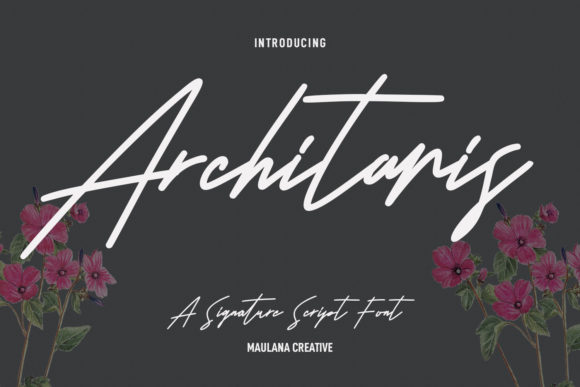
Behold, Architaris Signature Font, the epitome of elegance and beauty in the realm of script fonts. Maulana Creative, the mastermind behind this enchanting creation, has meticulously crafted each stroke and curve to evoke a sense of sophistication and charm. Architaris Signature is not merely a font; it's an artistic expression that breathes life into your words, transforming them into captivating masterpieces.
Immerse yourself in the world of Architaris Signature and discover a treasure trove of possibilities. This versatile font family effortlessly adapts to a myriad of creative endeavors, be it personal branding, wedding invitations, social media graphics, or heartfelt letters. Its medium contrast strokes dance across the page, creating a visual symphony that commands attention and leaves a lasting impression.
With Architaris Signature, you'll embark on a typographic journey like no other. Experience the joy of crafting personalized signatures that exude your unique style and personality. Let your words flow effortlessly through the intricate ligatures and alternates, adding a touch of whimsy and charm to every message you convey.
Unleash your creativity and watch as Architaris Signature transforms your digital creations into works of art. Its delicate strokes and graceful curves will elevate your designs, making them stand out from the mundane and capturing the hearts of your audience. Embrace the allure of Architaris Signature and let your imagination soar.